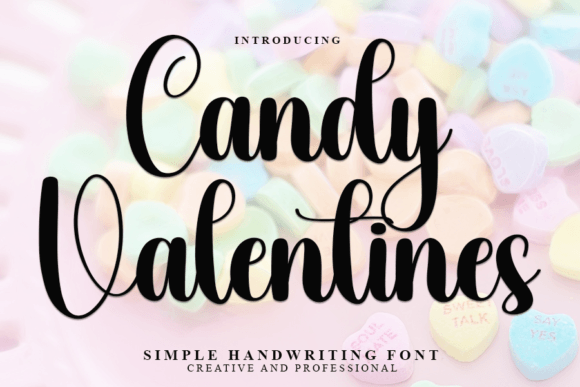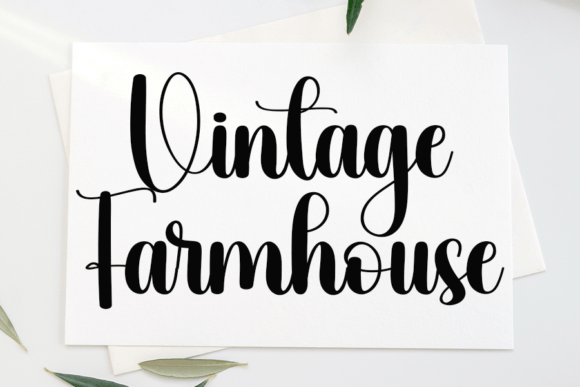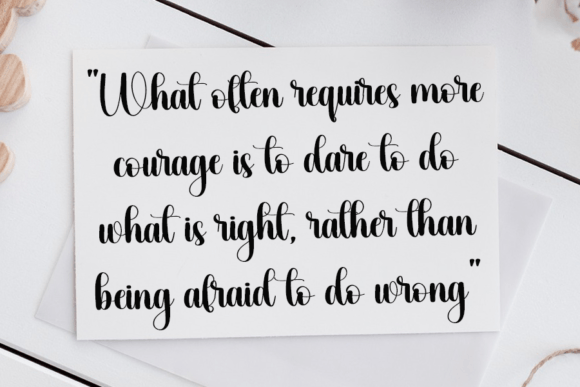
Candy Valentines Font
About the Candy Valentines Font
Meet Candy Valentines Font, a stunning font that brings a touch of elegance and professionalism to any design. Candy Valentines is a delicate handwritten font carefully crafted for a cool and unique design. This font can be used to write letters, invitations, food products, titles, and more.
Candy Valentines excels in projects requiring a touch of playful elegance—think wedding invitations, greeting cards, or branding for artisanal food products. Its delicate nature makes it ideal for headlines, short quotes, and logos, adding a handcrafted feel. However, its low x-height and stylistic variations make it unsuitable for body text or UI elements where readability is paramount.
Pairing Candy Valentines with a clean sans-serif like Montserrat or a modern serif such as Playfair Display creates a balanced and sophisticated look. For a more whimsical feel, consider pairing it with a playful script font, but ensure legibility remains a priority by using the script sparingly.
The font’s overall personality is lighthearted yet refined, offering a touch of romantic charm without being overly saccharine. This makes it a versatile choice for brands aiming for a friendly, approachable, yet sophisticated image.
Candy Valentines Font Usage Examples
Candy Valentines Font Example